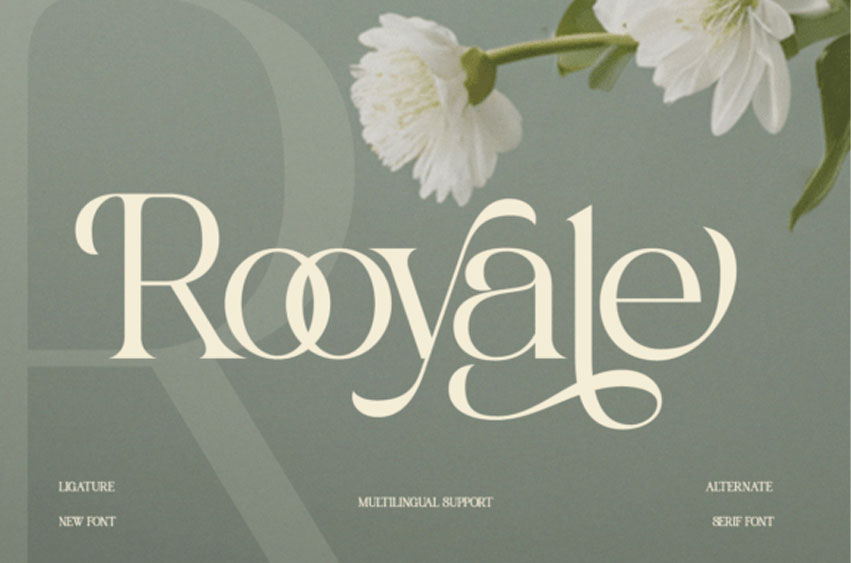
Rooyale Font
Rooyale Font is a modern stylish serif with elegant ligatures and smooth minimal curves. Crafted for luxury branding, beauty packaging, boutique identity, and editorial titles, this font brings a refined yet modern presence to any project.
Its stylish alternates and soft contrast make Rooyale stand out in both digital and print designs.